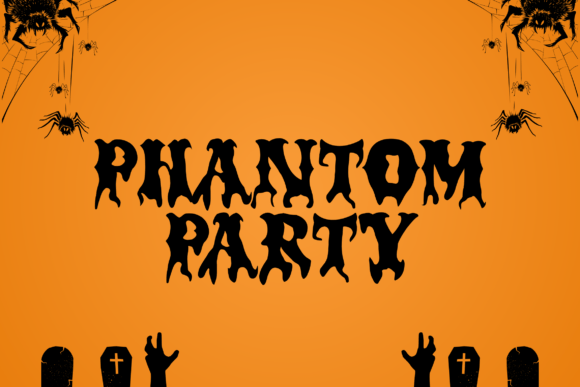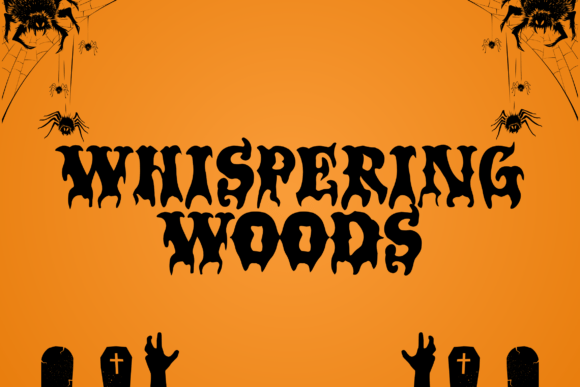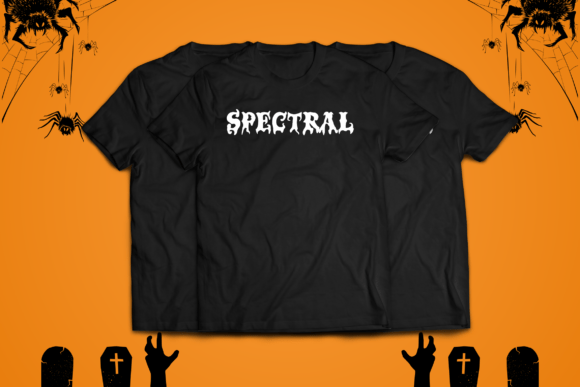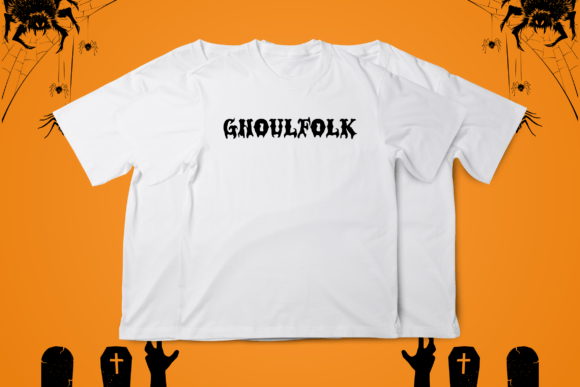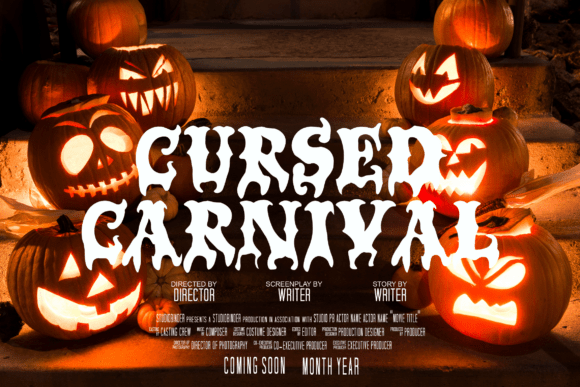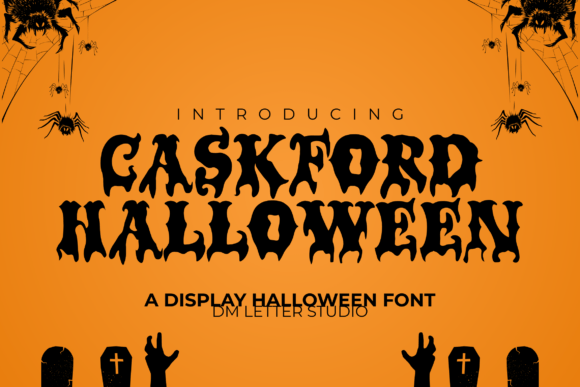
Caskford Halloween Font: A Spooky yet Readable Typeface for Your Halloween Designs
As the spookiest time of the year approaches, designers and crafters are on the lookout for the perfect font to give their Halloween creations a bold and eerie edge. Look no further than the Caskford Halloween Font, a typeface that takes the rugged, old western roots of Caskford and pushes them into darker territory. In this article, we’ll dive into the features and benefits of this unique font and explore how it can elevate your Halloween designs.
A Font that’s Both Spooky and Readable
Caskford Halloween Font is designed to be both bold and readable, making it perfect for a wide range of applications, from small labels to big posters and signs. The letterforms are rugged and vintage, with a spooky edge that’s sure to grab attention. Despite its eerie vibe, the font remains highly legible, even at smaller sizes. This makes it an excellent choice for designers who want to create eye-catching Halloween designs that are also easy to read.
Perfect for Halloween Branding and Designs
Caskford Halloween Font is ideal for a variety of Halloween-related designs, including:
- Halloween branding: Create a spooky and memorable brand identity with this unique font.
- Spooky packaging: Add a touch of eeriness to your product packaging with Caskford Halloween Font.
- Party posters: Design eye-catching posters for Halloween parties and events.
- Haunted house signage: Create creepy signs and banners for haunted houses and haunted attractions.
- Apparel and seasonal merch: Use the font to create spooky t-shirts, stickers, and other Halloween-themed merchandise.
Additionally, the solid outlines of the font print and cut cleanly for vinyl, laser, stickers, and screen printing. This makes it perfect for crafters who want to create physical products, such as stickers, signs, and banners.
So, what sets Caskford Halloween Font apart from other horror fonts? Here are a few benefits that make it an excellent choice for designers and crafters:
- Unique blend of western grit and Halloween mood: This font combines the ruggedness of western typography with the spookiness of Halloween, making it stand out from more traditional horror fonts.
- Bold and consistent letterforms: The font’s bold letterforms make it easy to read, even at smaller sizes, and ensure that your designs look professional and cohesive.
- Start with short, punchy words and phrases: Caskford Halloween Font is perfect for short, bold statements. Try using it for headings, titles, and short phrases.
- Experiment with different sizes and colors: The font looks great in a variety of sizes and colors. Don’t be afraid to experiment and find the perfect combination for your design.
- Combine with other fonts for added interest: Caskford Halloween Font pairs well with other fonts. Try combining it with a script font or a sans-serif font for added interest and contrast.